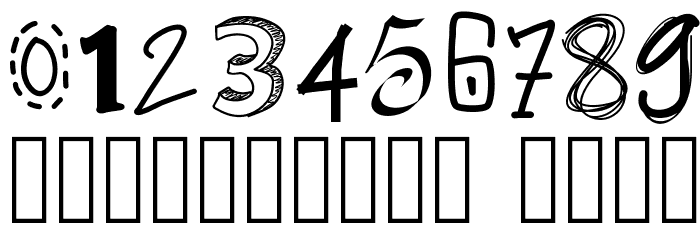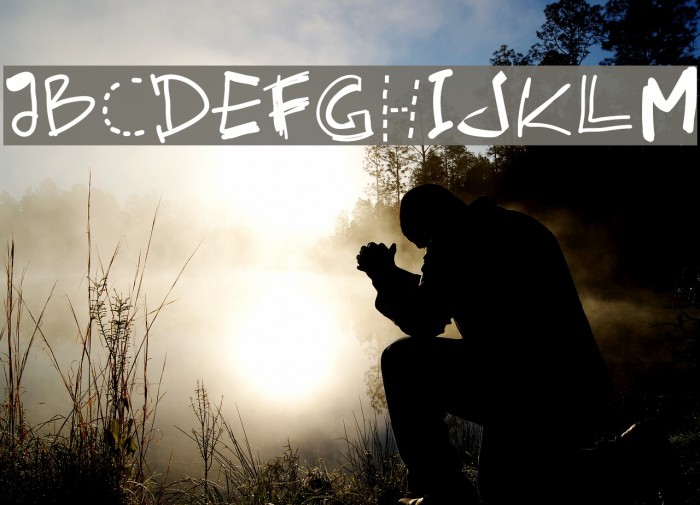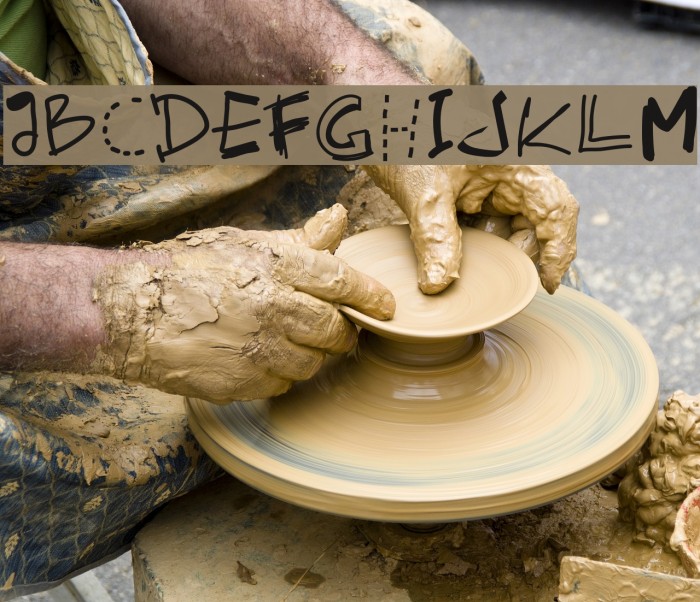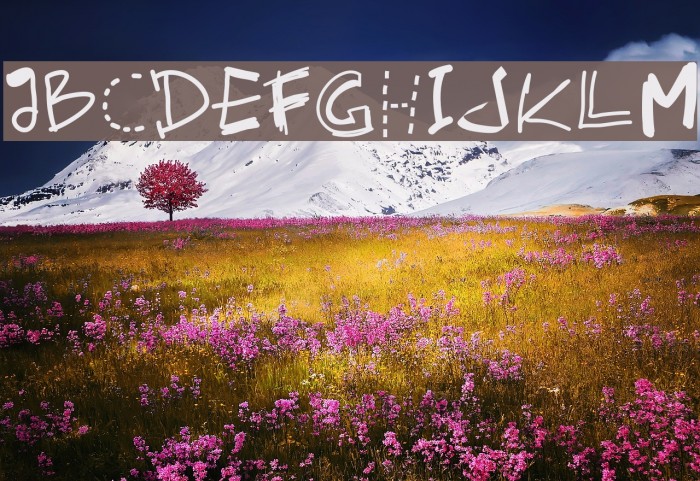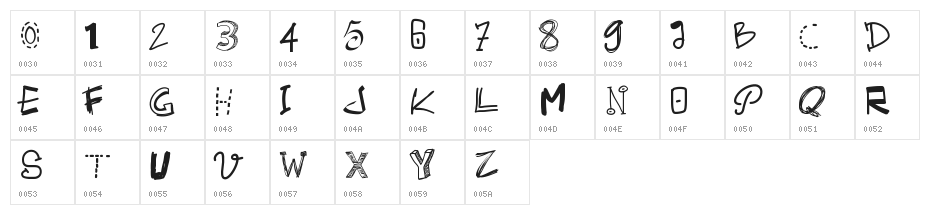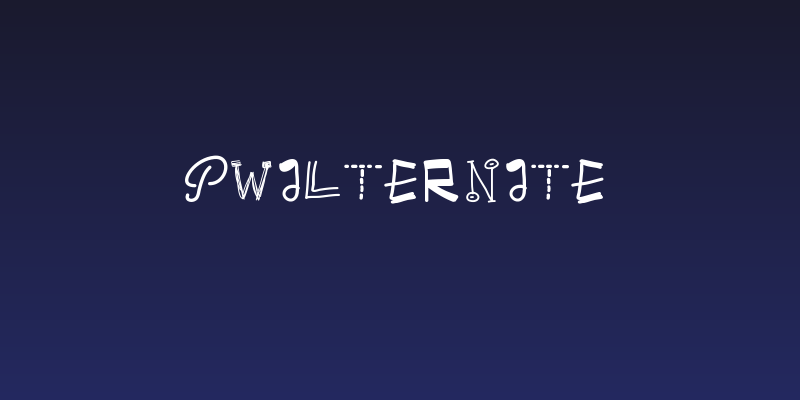
PWAlternate Font
This font is a playful and eclectic mix of styles, each character exhibiting a unique and whimsical design. The uppercase letters feature a variety of decorative elements, such as dots, stripes, and bold strokes, giving each letter a distinct personality. The numbers continue this theme with creative embellishments, making them stand out with their artistic flair. The overall appearance is dynamic and lively, perfect for projects that require a touch of fun and creativity. The font's varied styles within the same set make it versatile for different design needs.
A playful and eclectic font with unique, whimsical character designs.
- Proposed Projects: Ideal for children's books, creative posters, playful branding, and artistic invitations.